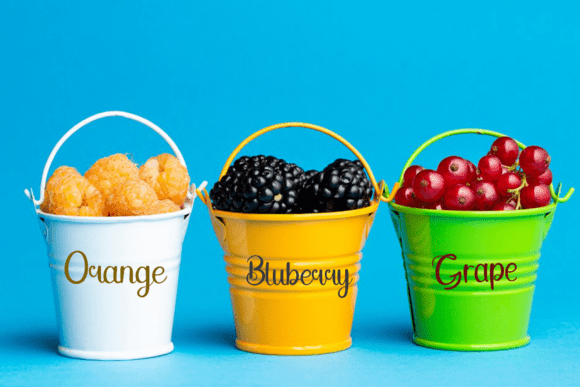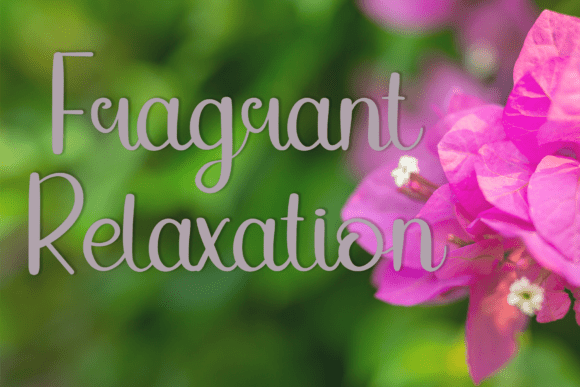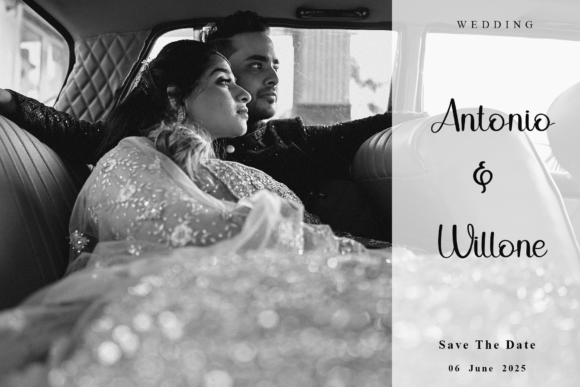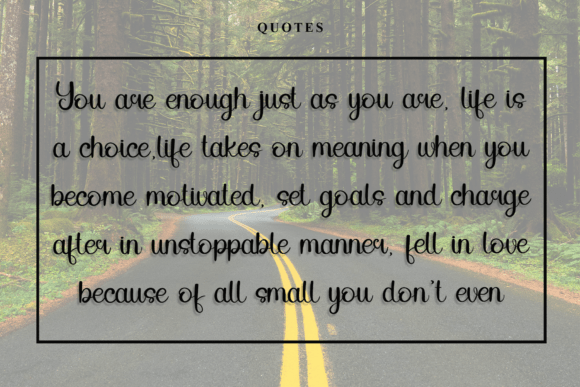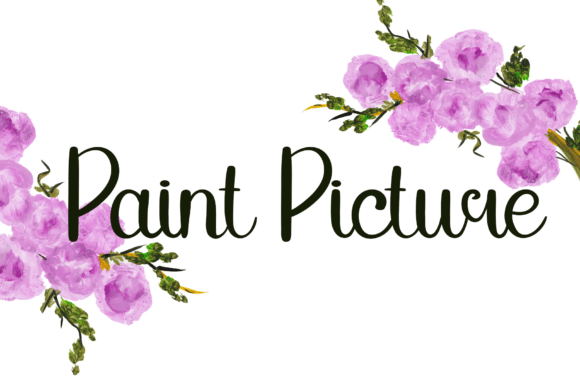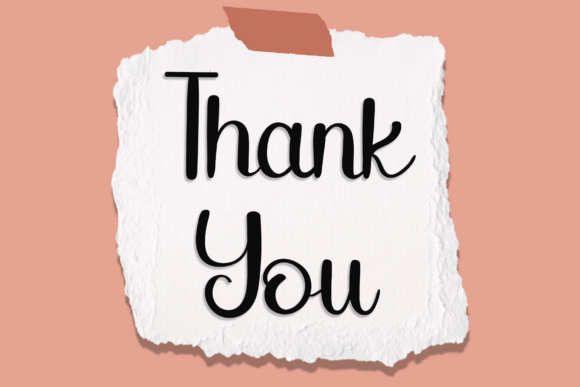
Introducing Beauty Purchella Font: Elevate Your Designs with Timeless Elegance
In the world of design, typography plays a crucial role in conveying the tone and aesthetic of a project. For designers and crafters seeking to add a touch of sophistication and elegance to their work, the Beauty Purchella Font is an exceptional choice. This trendy handwritten font is inspired by timeless classic calligraphy, bringing a contemporary atmosphere and impeccable form to any design project.
The Beauty of Beauty Purchella Font
Beauty Purchella Font is a masterpiece of modern calligraphy, carefully crafted to bring a sense of luxury and refinement to your designs. Its elegant strokes and fluid letterforms evoke a sense of nostalgia, while its contemporary twist ensures it remains fresh and relevant. Whether you’re working on a branding project, packaging design, or digital content, this font is sure to make a lasting impression.
Key Features of Beauty Purchella Font
- Trendy Handwritten Style: Beauty Purchella Font boasts a stylish handwritten aesthetic that’s perfect for designs that require a personal touch.
- Contemporary Atmosphere: This font’s modern sensibilities ensure it fits seamlessly into contemporary designs, while its classic inspiration provides a timeless appeal.
- Impeccable Form: Each letterform has been meticulously crafted to showcase impeccable form and elegance, making it ideal for high-end designs.
- Versatility: Beauty Purchella Font can be used across a wide range of design projects, from digital content to print materials.
Why Choose Beauty Purchella Font?
With so many fonts available, why choose Beauty Purchella Font for your next project? Here are just a few compelling reasons:
- Elegance and Sophistication: This font adds an instant touch of elegance and sophistication to any design, making it perfect for high-end branding and luxury products.
- Readability: Beauty Purchella Font is not only beautiful but also highly readable, ensuring your message is communicated clearly and effectively.
- Uniqueness: With its unique blend of classic inspiration and modern sensibilities, this font will help your designs stand out in a crowded marketplace.
Using Beauty Purchella Font in Your Designs
Beauty Purchella Font is incredibly versatile and can be used in a variety of design projects, including:
- Branding and Logos: Create a lasting impression with a beautiful, elegant logo that showcases your brand’s personality.
- Packaging Design: Add a touch of luxury to your product packaging and make it stand out on store shelves.
- Digital Content: Use Beauty Purchella Font in your digital content, such as blog posts, social media graphics, and email newsletters, to add a touch of sophistication.
- Print Materials: This font is perfect for print materials, including brochures, flyers, and business cards.
In conclusion, Beauty Purchella Font is an exceptional choice for designers and crafters seeking to add a touch of elegance and sophistication to their work. With its trendy handwritten style, contemporary atmosphere, and impeccable form, this font is sure to elevate your designs and make a lasting impression. Whether you’re working on a branding project, packaging design, or digital content, Beauty Purchella Font is the perfect choice for those who value beauty, quality, and timeless elegance.